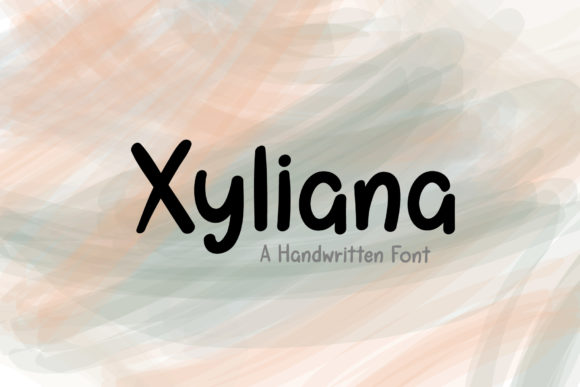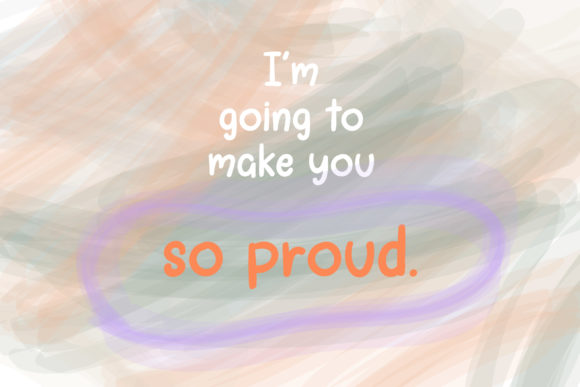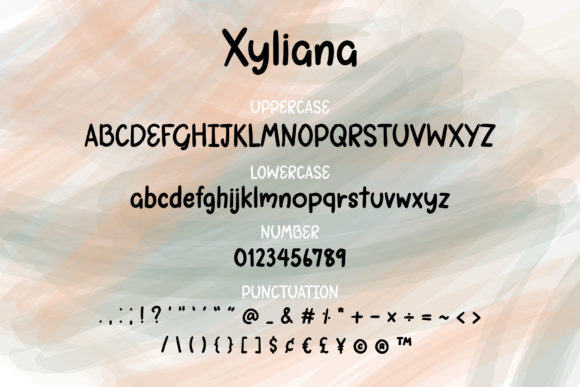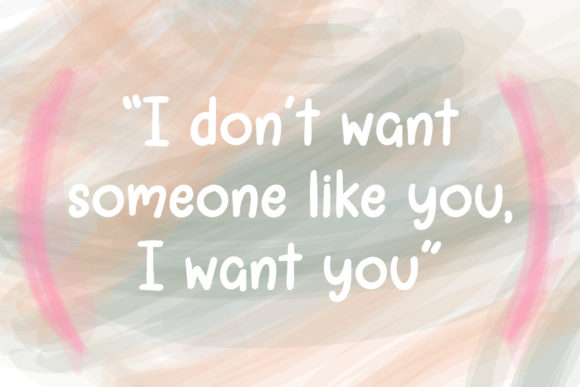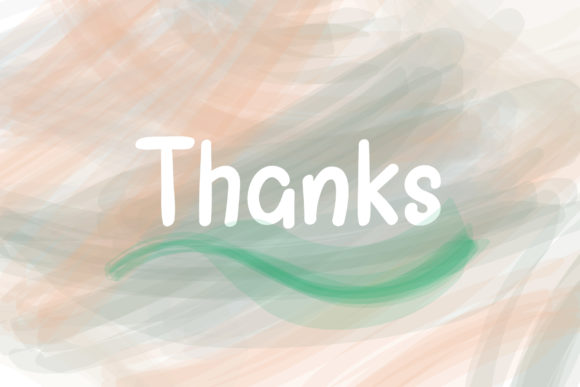
Xyliana Font
About Xyliana Font
Xyliana is a cute and fun handwritten font, carefully handcrafted to become a true favorite. Its casual charm makes it appear wonderfully down-to-earth, readable and, ultimately, incredibly versatile. Xyliana will look outstanding in any context, whether it’s being used on busy backgrounds or as a standalone headline!